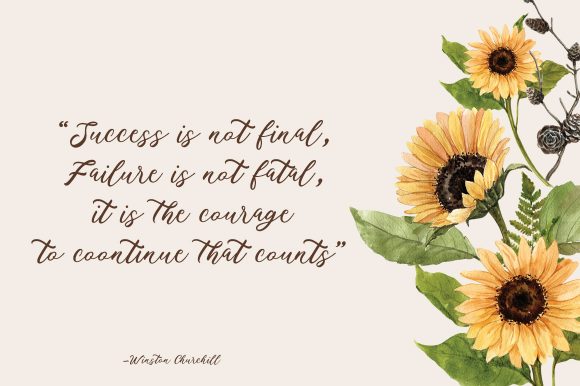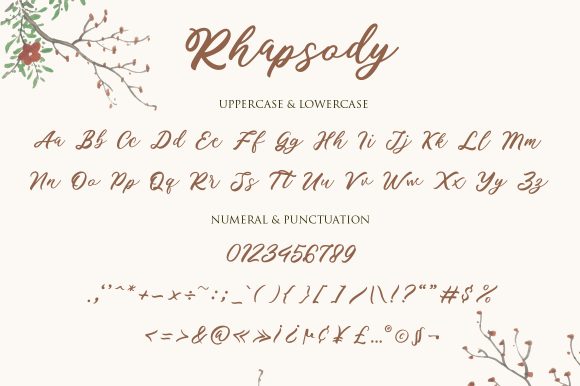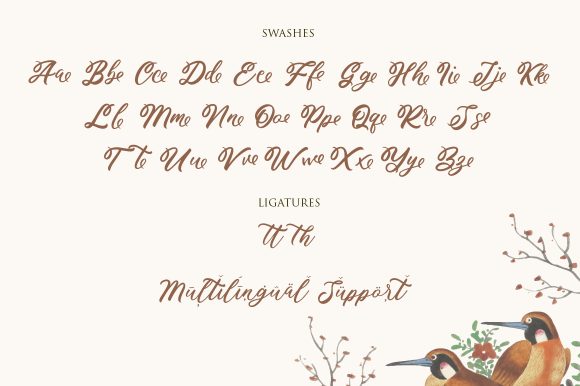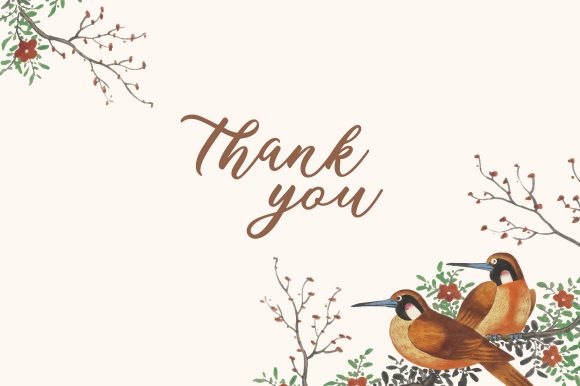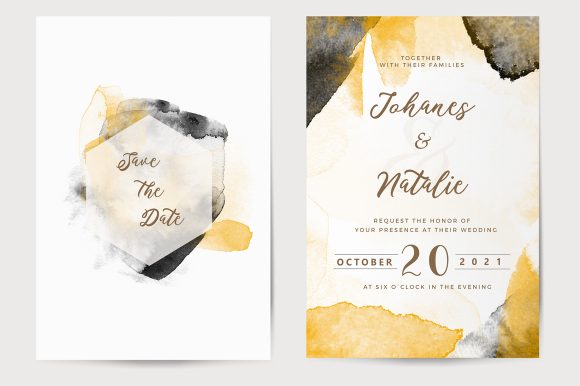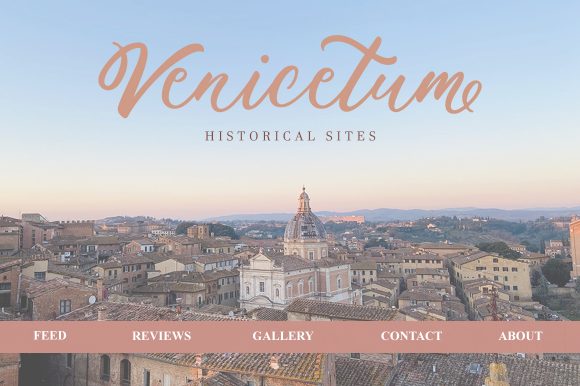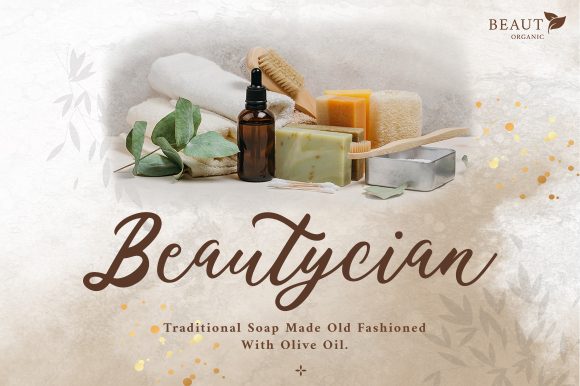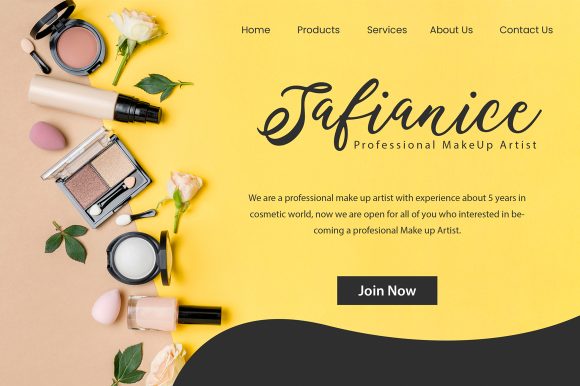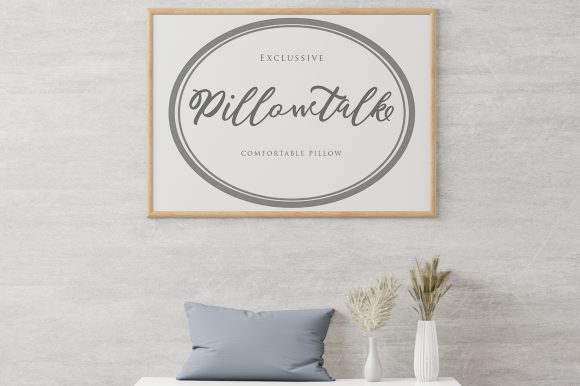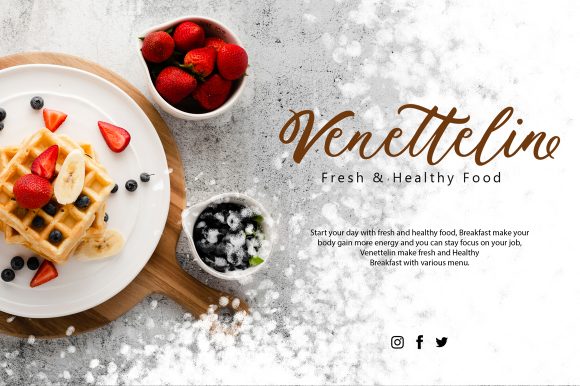
Rhapsody Font
About Rhapsody Font
Rhapsody is a flowing and modern handwritten font. It looks beautiful on wedding invitations, thank you cards, quotes, greeting cards, logos, business cards and every other design which needs a customized touch.